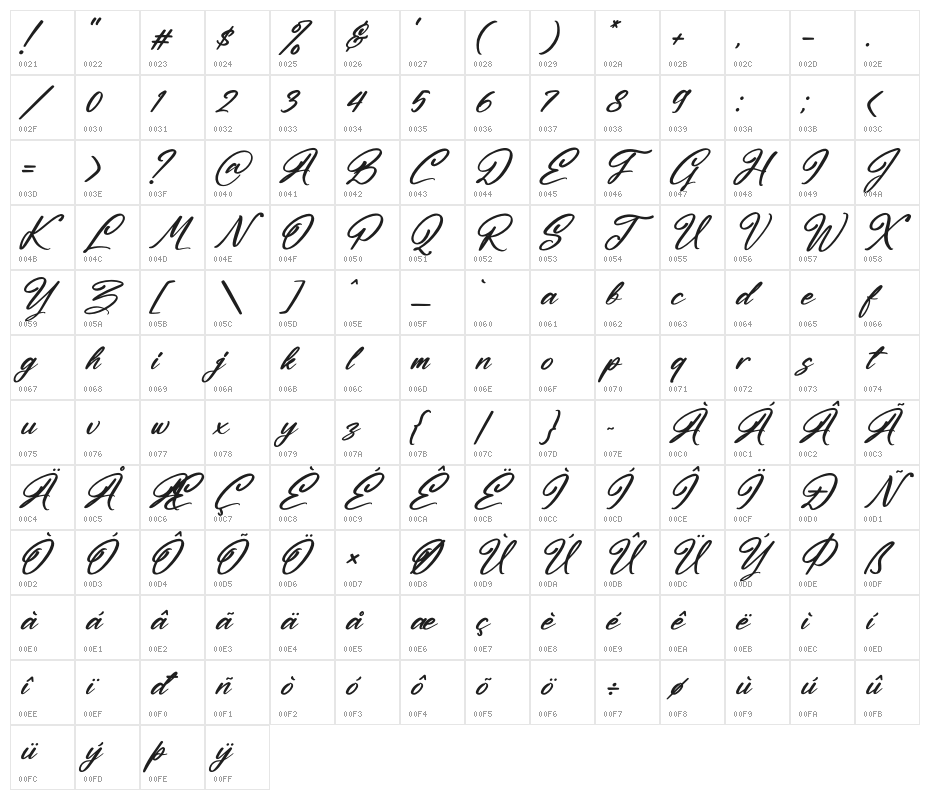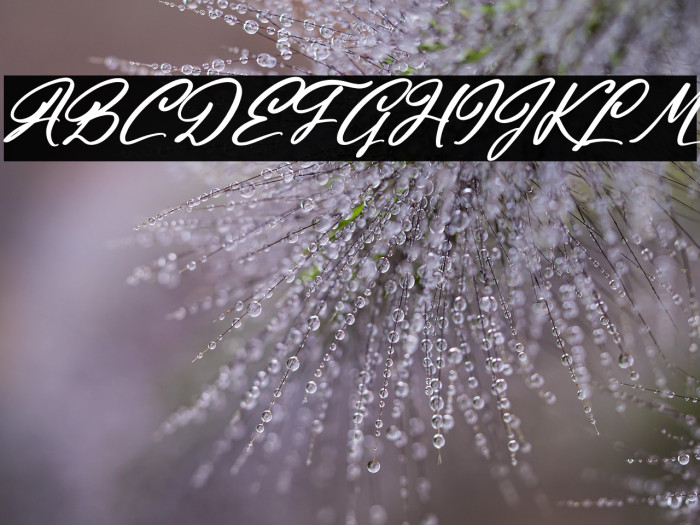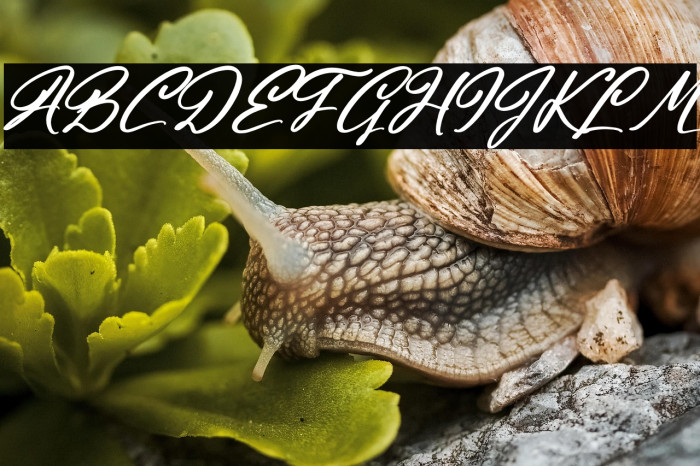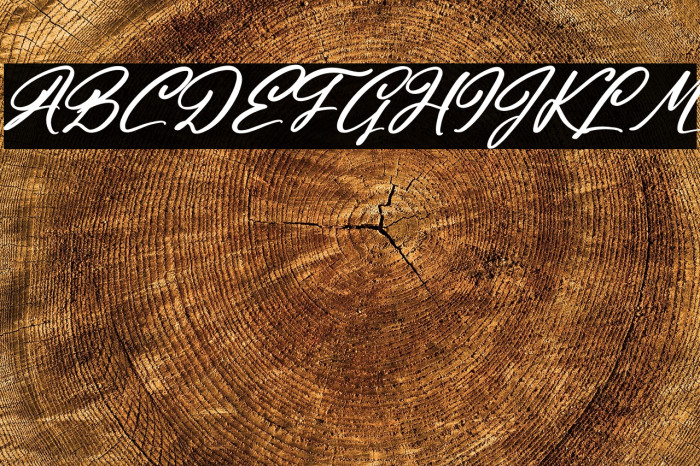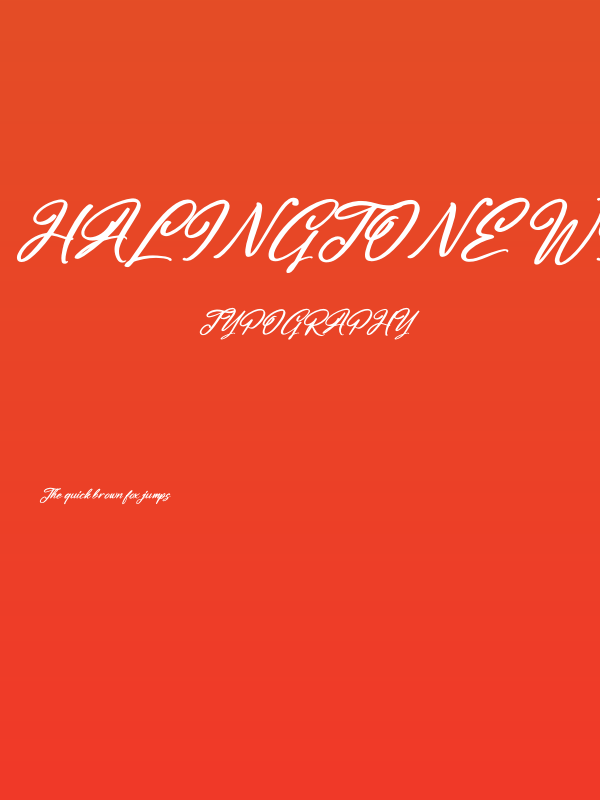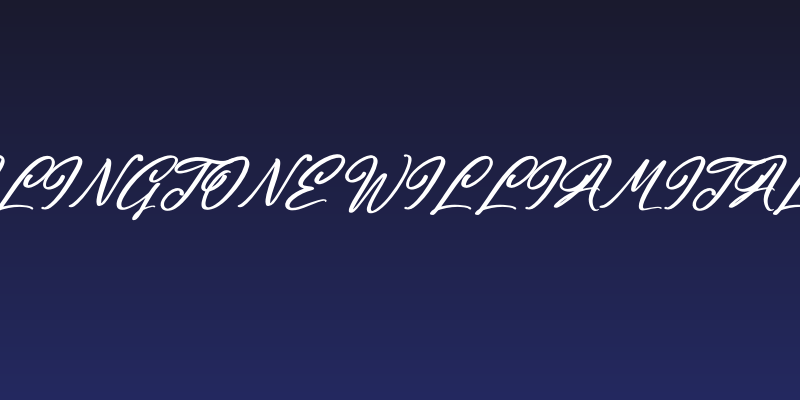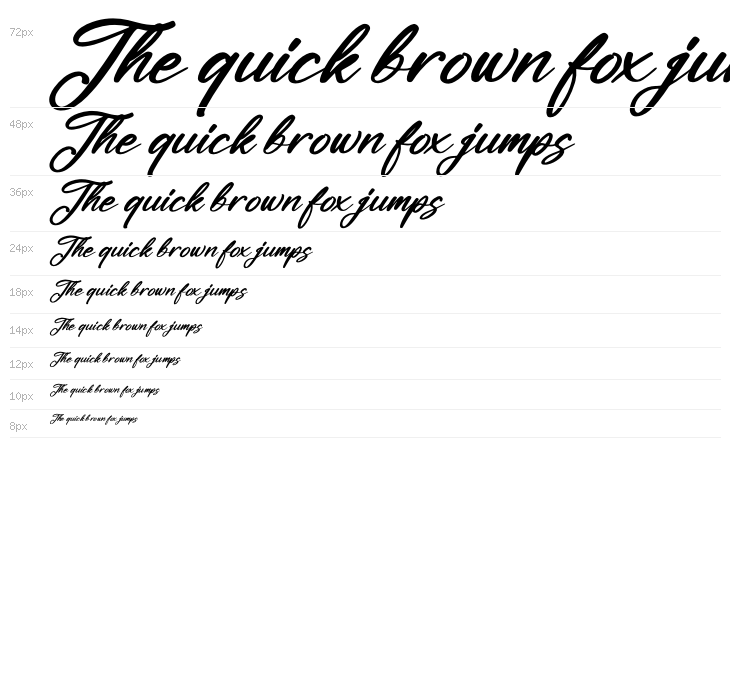
Halingtone William Italic Font
Halingtone William Italic Description
This elegant script font features a flowing, cursive style with a distinct italic slant, giving it a sense of motion and grace. The characters are intricately designed with smooth curves and loops, creating a harmonious and sophisticated appearance. The uppercase letters are bold and prominent, while the lowercase letters maintain a consistent flow, enhancing readability. The numerals and special characters are crafted to match the overall aesthetic, ensuring a cohesive look across all text. This font exudes a classic charm, making it suitable for a variety of formal and creative applications.
| Proposed Projects | Ideal for wedding invitations, elegant branding, greeting cards, and formal event programs. |